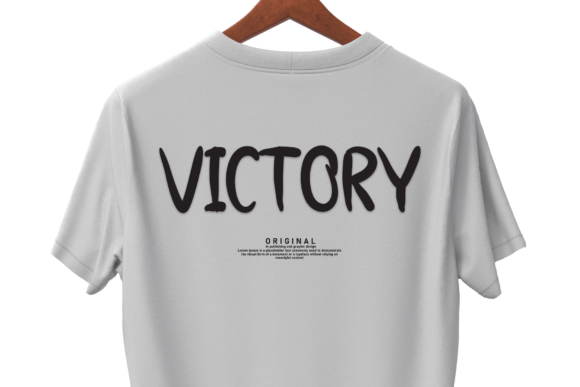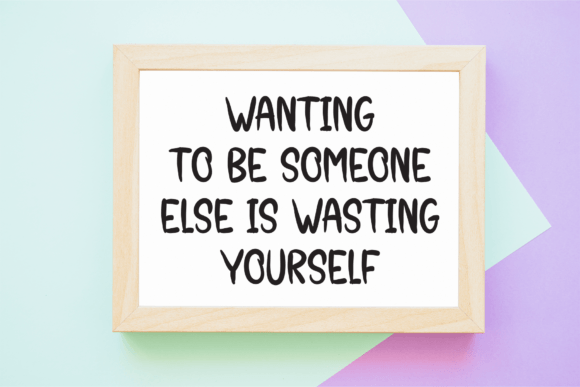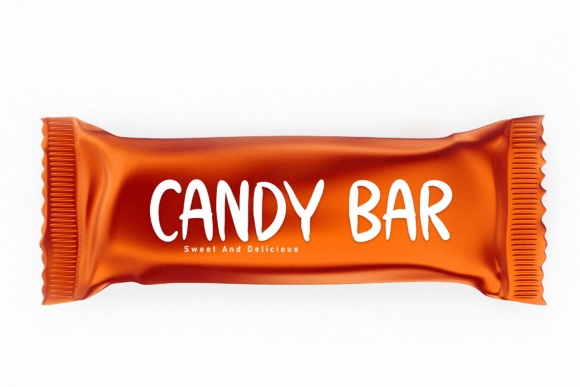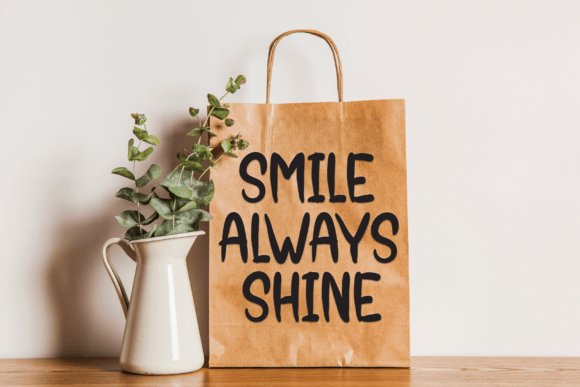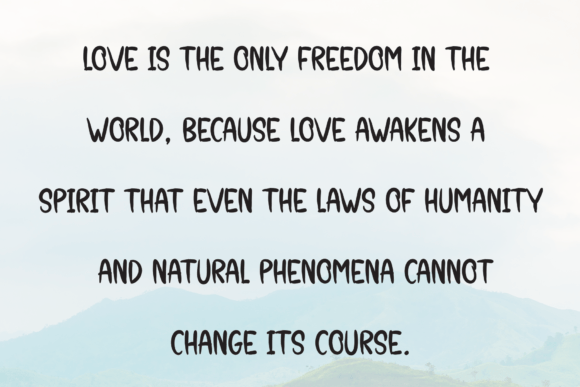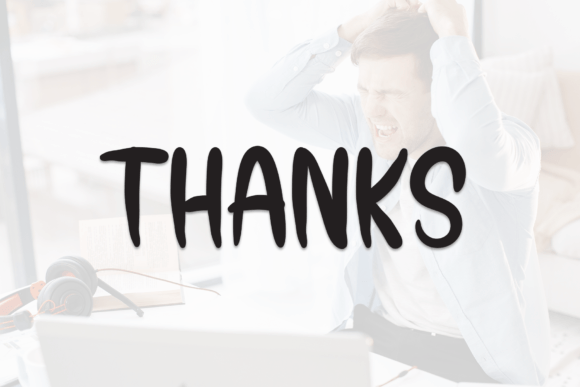
The Angry Font: A Sweet and Friendly Handwritten Display Font
I’ll never forget the time I was working on a wedding invitation project, and I just couldn’t seem to find the right font. My client wanted something that was both elegant and playful, but I was coming up blank. That’s when I stumbled upon the Angry font, and let me tell you, it was love at first sight! 💕
At first glance, the name “Angry” might seem a bit misleading, but trust me, this font is anything but angry. **It’s a sweet and friendly handwritten display font** that’s perfect for adding a touch of whimsy to your designs.
So, what do I love about the Angry font? Here are a few things that make it stand out:
- ✨ Cute and fun: This font is perfect for designs that need a playful touch, like wedding invitations, birthday cards, or social media graphics.
- ✅ Elegant yet approachable: The Angry font has a sophisticated feel to it, but it’s still friendly and approachable.
- 💕 Versatile: This font works well in a variety of design contexts, from digital to print.
- 🤔 Limited character set: While the Angry font has a wide range of characters, it’s not a full Unicode font, so you might encounter some limitations when using non-English characters.
- ⚠️ Not suitable for body text: While the Angry font is beautiful, it’s not the best choice for body text due to its decorative nature.
The Angry font was designed with love and care by a talented type designer who wanted to create a font that would bring a smile to people’s faces. The story goes that the designer was inspired by the imperfections and quirks of handwritten text and set out to create a font that would capture that same magic.